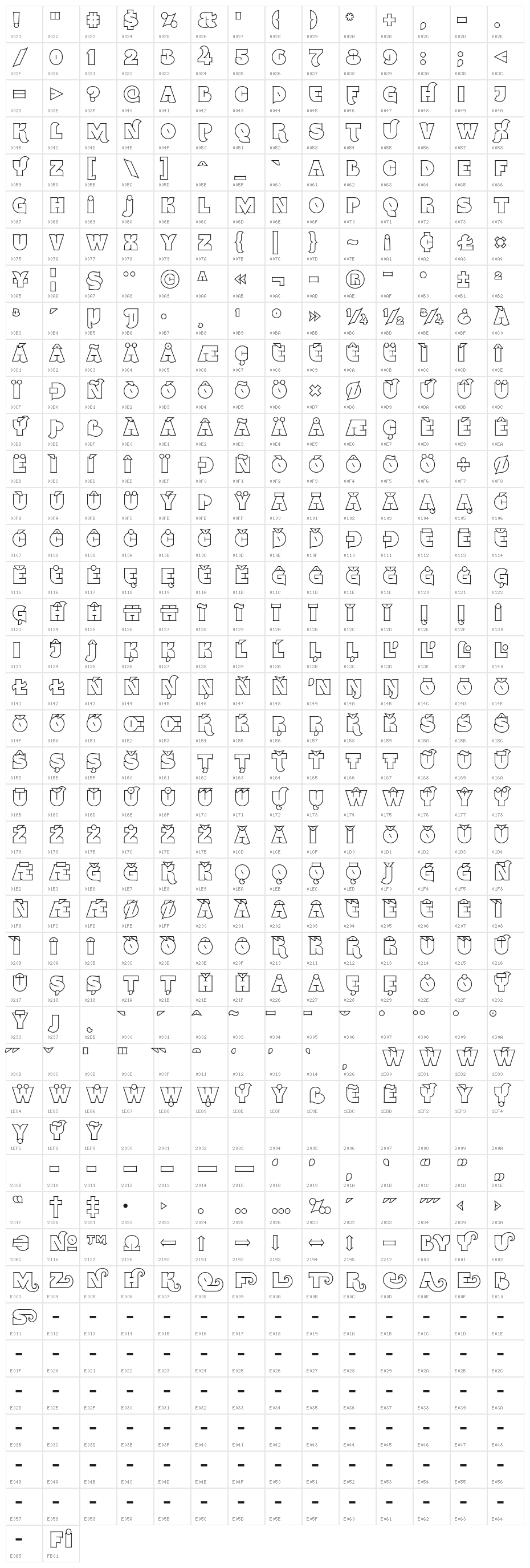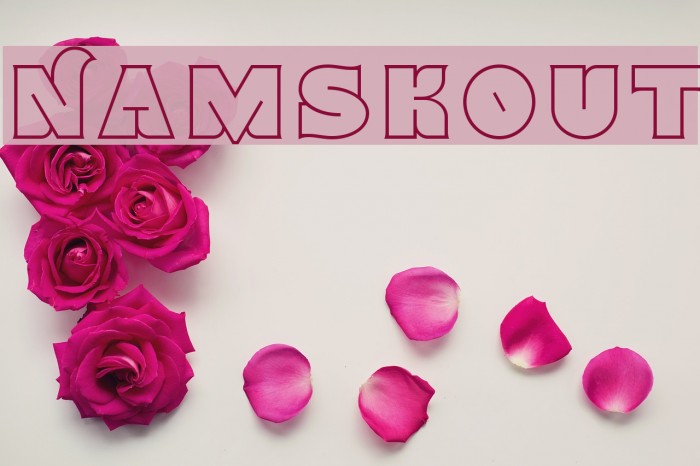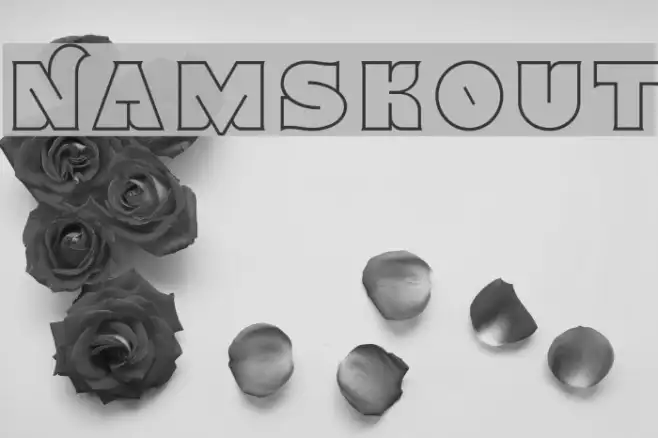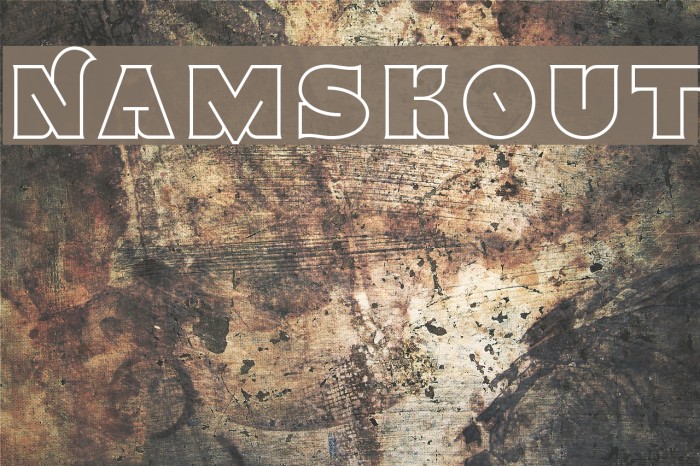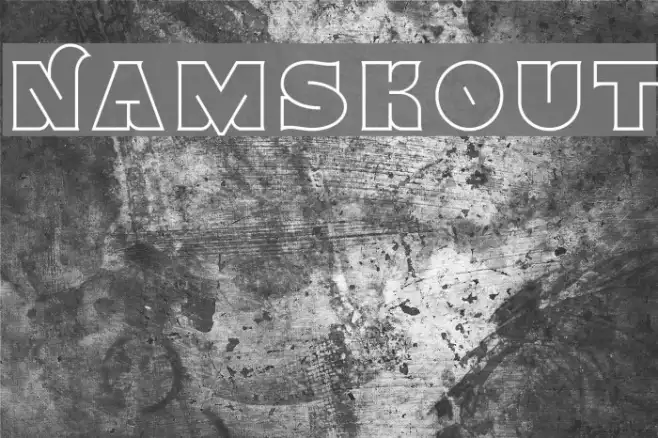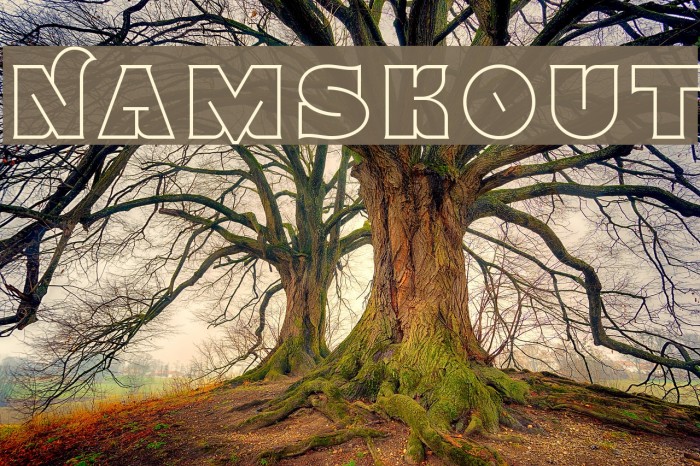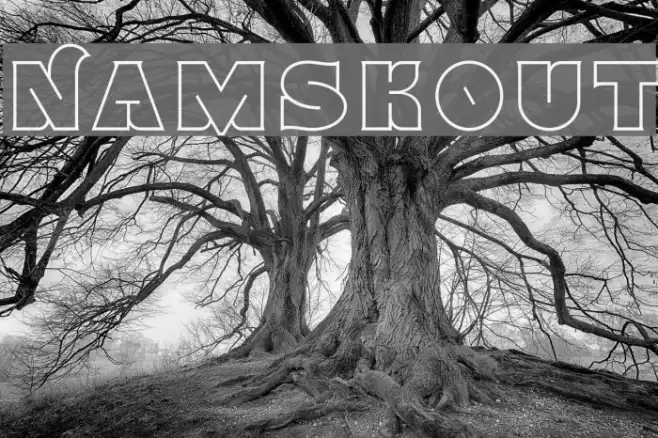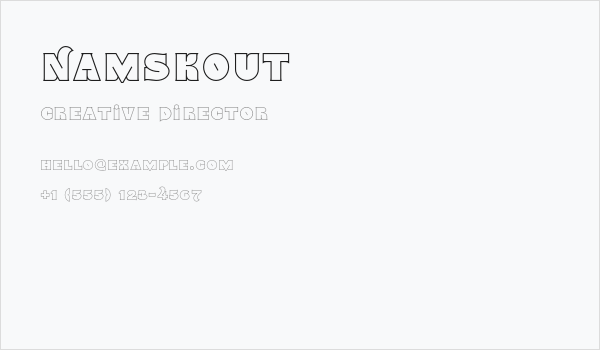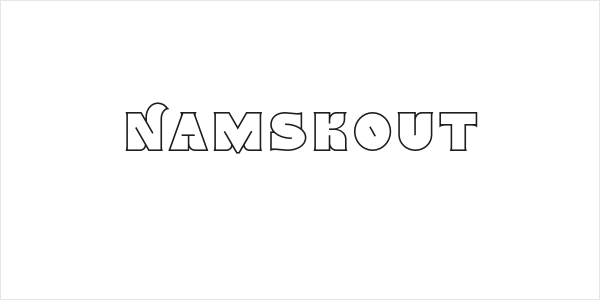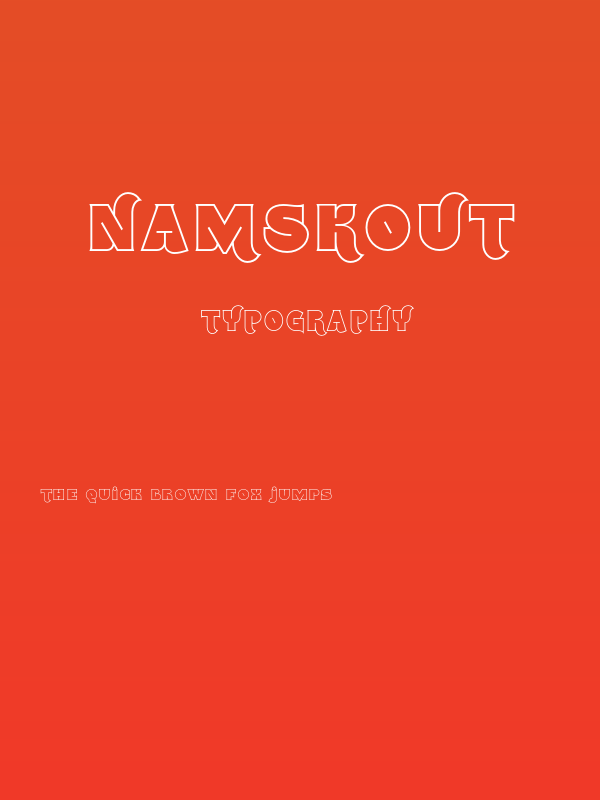
Namskout Font
Namskout Description
This font features a bold, decorative style with unique cut-out shapes within each character, creating a playful and eye-catching appearance. The uppercase letters have a strong presence with their thick strokes and geometric forms, while the lowercase letters maintain a consistent style, enhancing readability. The numbers and special characters follow the same design principles, ensuring a cohesive look. The font's distinct style makes it ideal for creative projects that require a touch of whimsy and boldness.